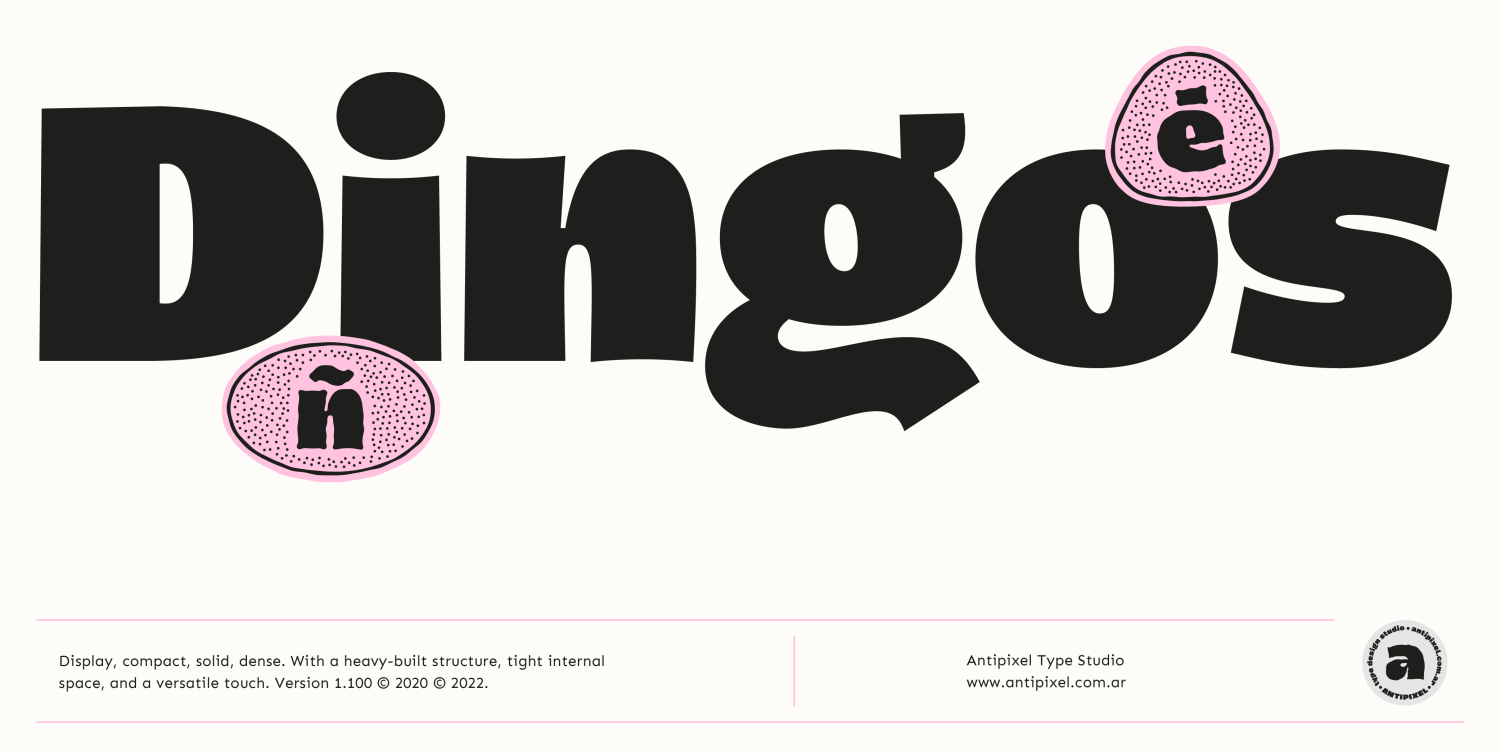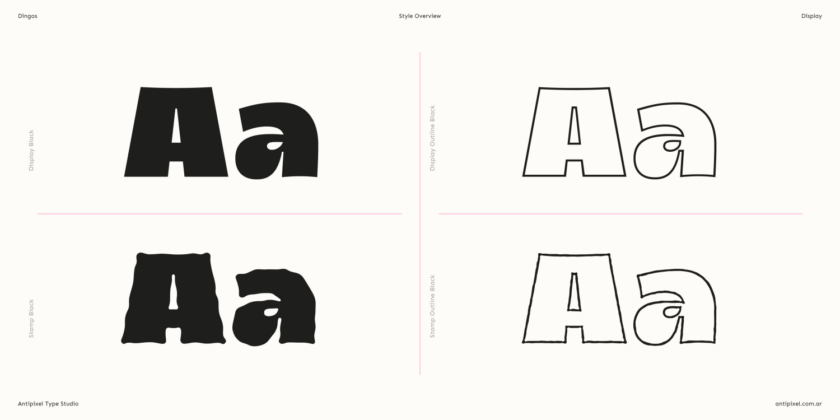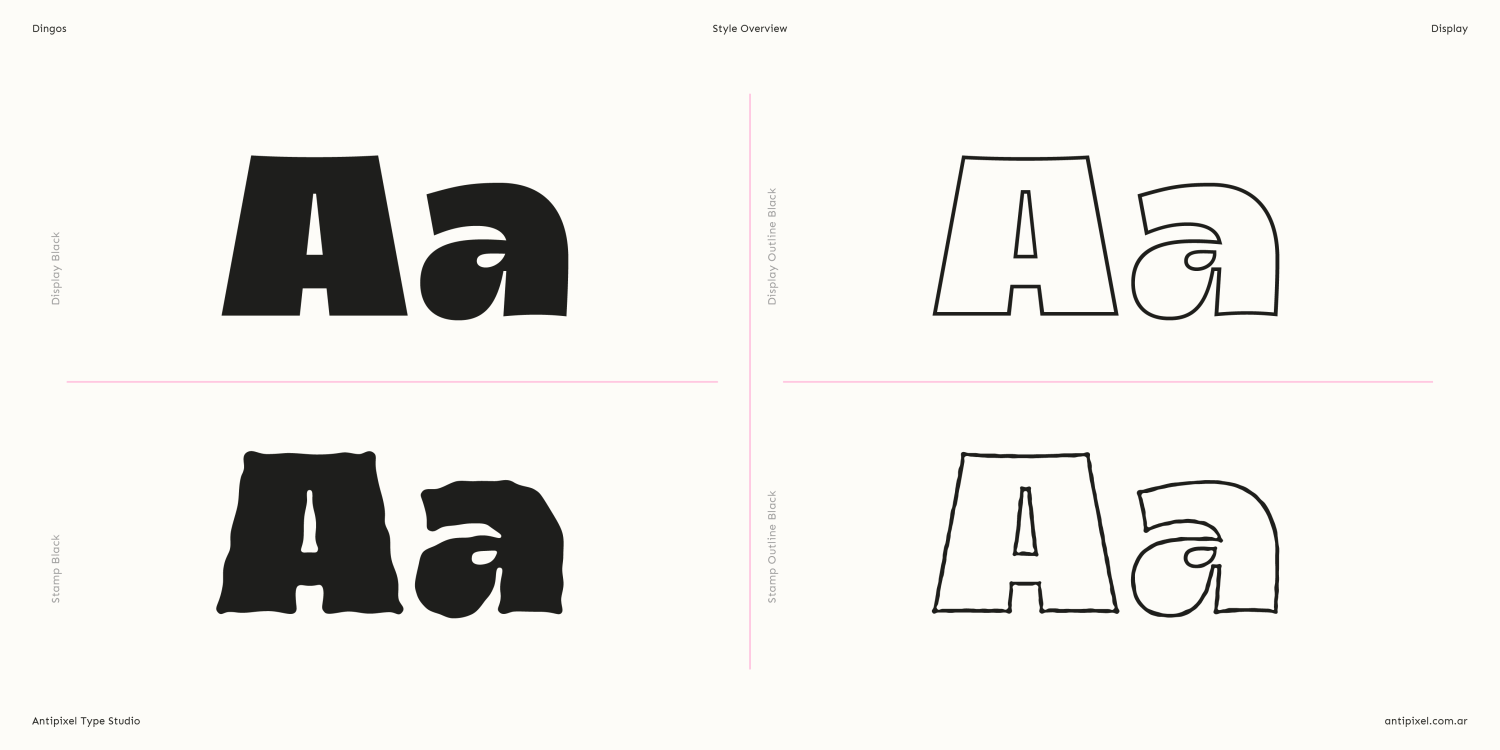
About Dingos
Dingos is a display & joyful typeface specially handcrafted for strong and powerful usage, with a versatile touch. Consisting of 4 styles, Display, Display Outline, Stamp & Stamp Outline, Dingos is perfect for any medium or large use due to the…